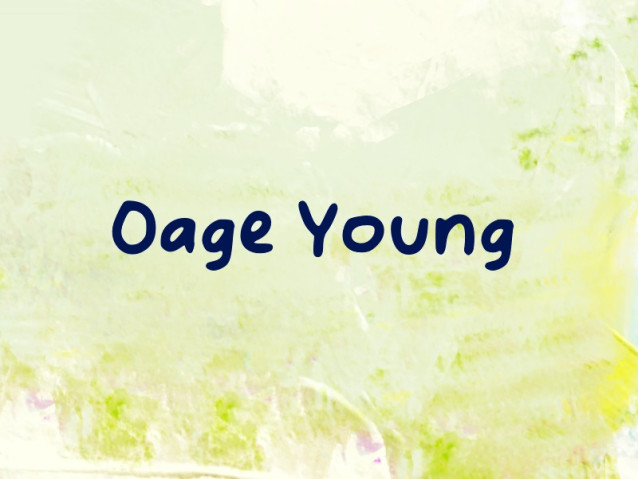
Oage Young Font
Oage Young Font is a simple and modern display font suitable for quotes, logos, headings, titles, and many more. Use it on any of your creative projects, and your designs will become outstanding!